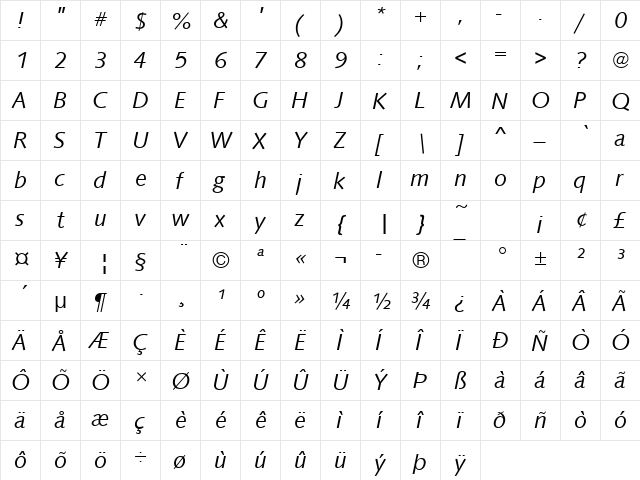
SyntaxT Italic
Design Context for SyntaxT Typeface
SyntaxT is a composed and adaptable typeface that performs quietly and consistently across a wide range of design contexts. The slanted form adds forward momentum and visual energy.
Pro Tip: Try SyntaxT for annotation and caption copy alongside an upright companion — the contrast in angle creates a dynamic but ordered typographic system.